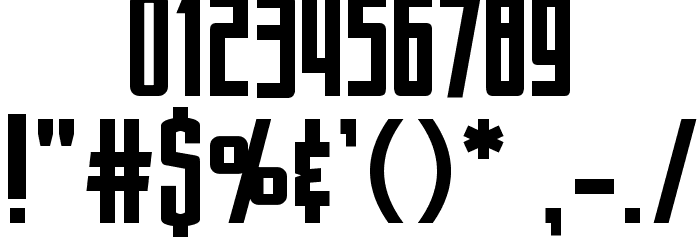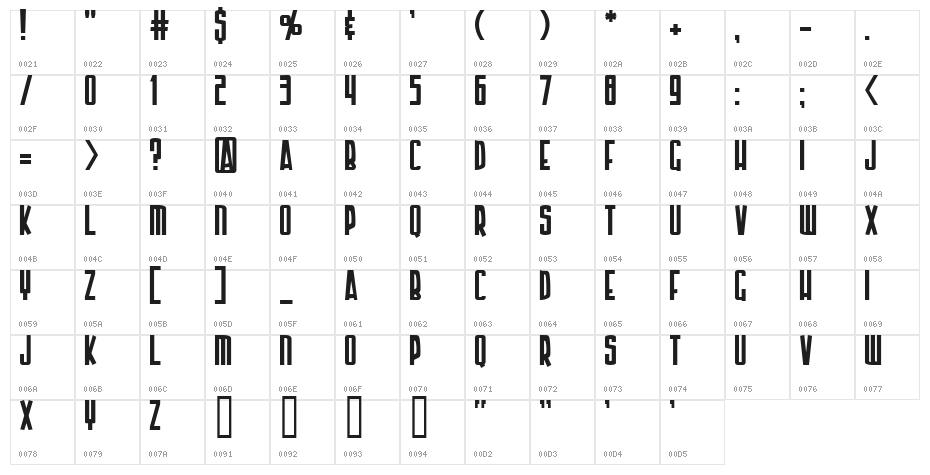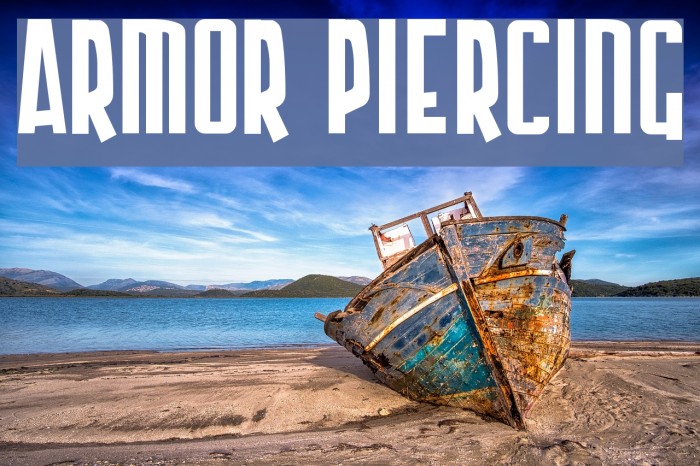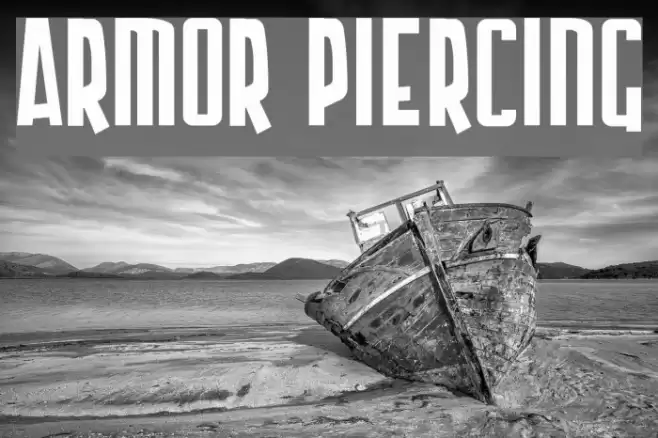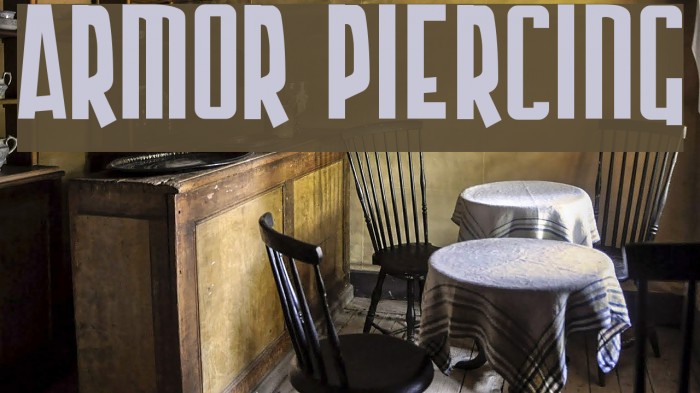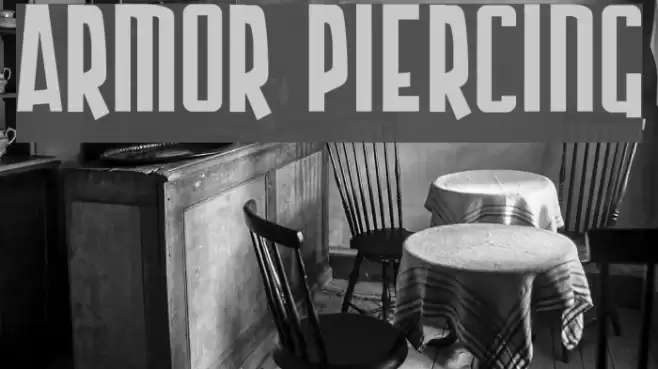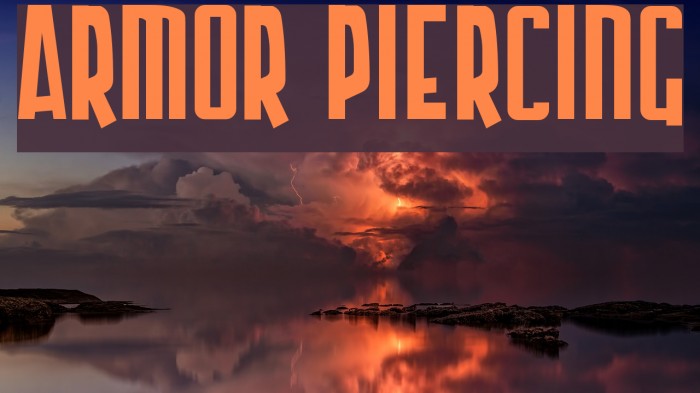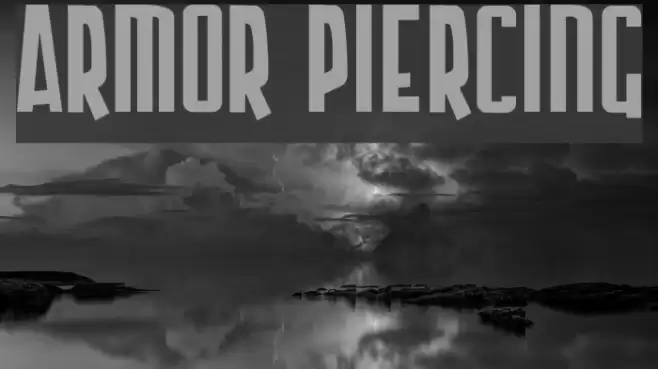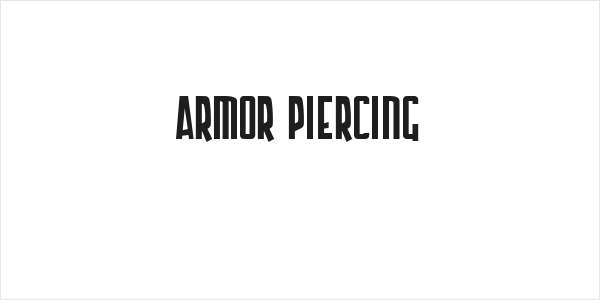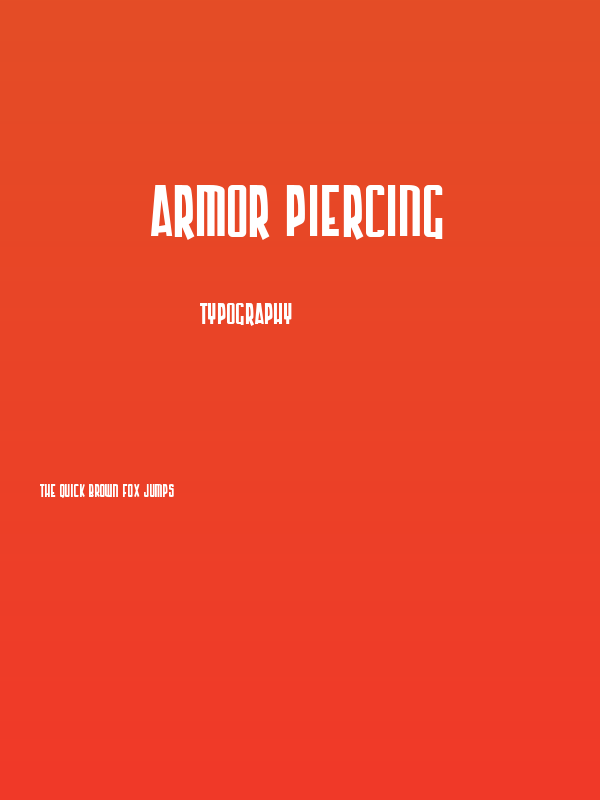
Armor Piercing Font
Armor Piercing Description
This font features a bold and striking design with tall, narrow characters that convey a sense of strength and modernity. The uppercase letters are particularly elongated, giving the typeface a commanding presence. The strokes are consistent in width, providing a uniform appearance across all characters. The numbers and special characters maintain the same boldness, ensuring a cohesive look throughout. This font is ideal for making a strong visual impact, with its clean lines and geometric shapes contributing to a contemporary aesthetic.
| Proposed Projects | Ideal for posters, headlines, branding, and any project requiring a strong visual impact. |